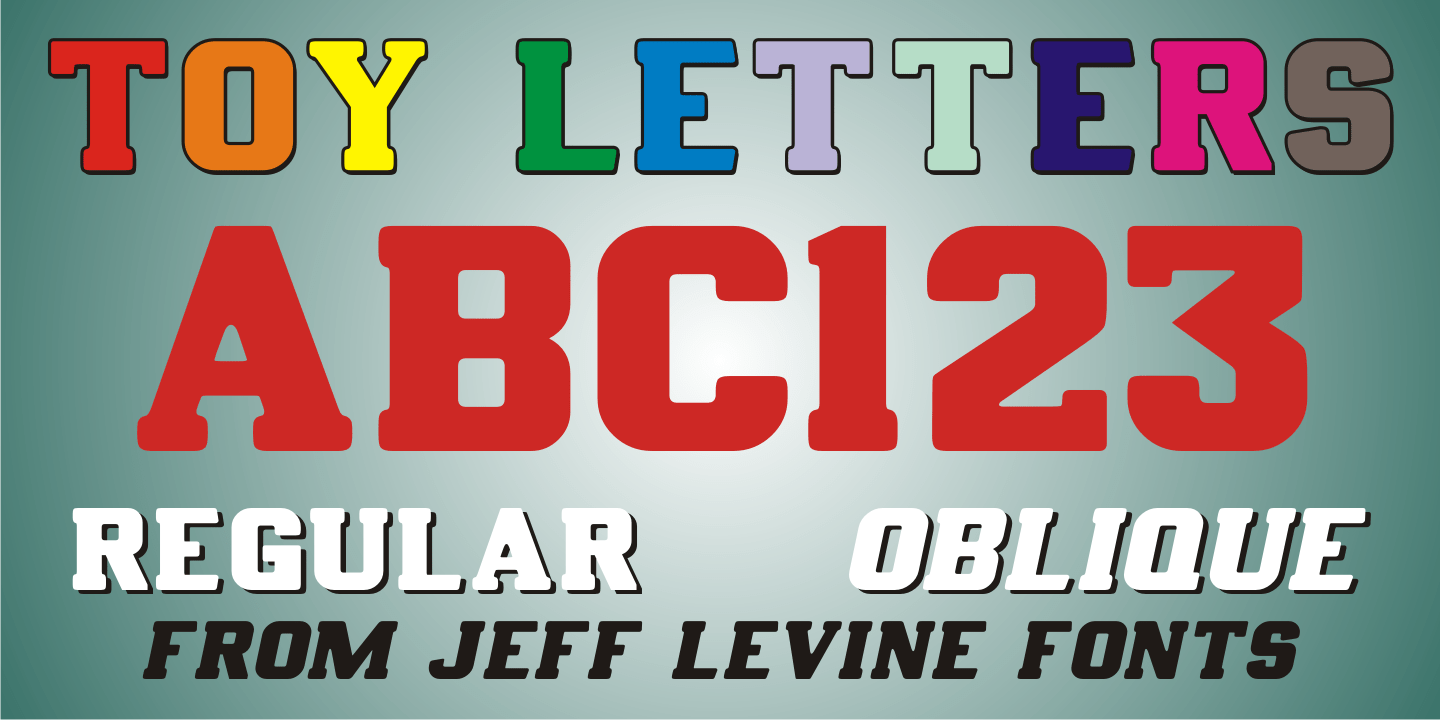
Toy Letters
A vintage set of die-cut letters and number by Village Toys (circa 1930s or 1940s) featured a playful, bold serif typeface. This is now available digitally as Toy Letters JNL, in both regular and oblique versions.